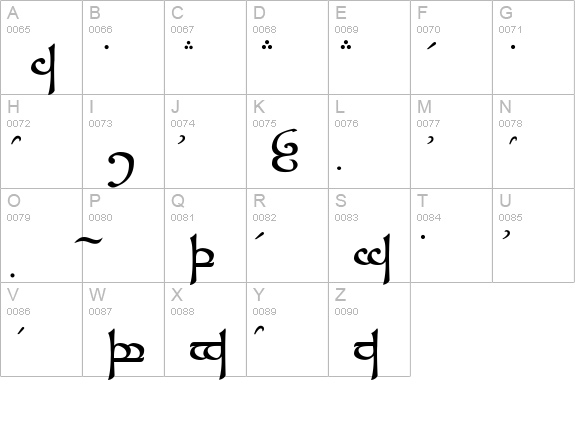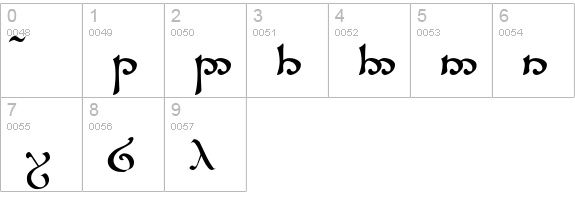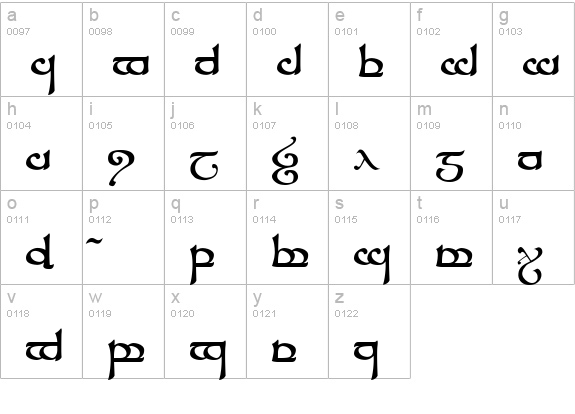
Tengwar Sindarin Font Details
Introducing the beautiful and enchanting Tengwar Sindarin font, a masterpiece designed to capture the essence of the Elvish script. This meticulously crafted font transports you to the mystical realms of J.R.R. Tolkien's Middle-earth, where the language of the Elves comes alive. Tengwar Sindarin boasts an elegant and flowing design that showcases the intricate curves and delicate strokes of each character. Every letter is imbued with a sense of grace and sophistication, reflecting the rich history and culture of the Sindar, one of the Elven kindreds. The Tengwar Sindarin font is more than just a typographic representation; it is a gateway to a world of imagination and wonder. Whether you are a dedicated Tolkien fan, a language enthusiast, or simply someone who appreciates the artistry of beautiful fonts, this typeface will captivate your senses and transport you to a realm of fantasy. What sets Tengwar Sindarin apart is its versatility. It can be used for a wide range of purposes, from designing book covers, creating stunning logos, or even crafting personalized tattoos. Its timeless and ethereal aesthetic lends itself to both modern and traditional designs, making it a perfect choice for any project that seeks to evoke a sense of magic and mystique. And the best part? Tengwar Sindarin is freely available to download at FontsMarket.com. We believe that creativity should be accessible to all, and we are thrilled to offer this font as a gift to the Tolkien community and beyond. With just a few clicks, you can bring the beauty of the Elvish script to your digital or print creations, allowing your imagination to soar to new heights. So, whether you are embarking on an artistic endeavor, expressing your love for Tolkien's works, or simply indulging in the beauty of the Elvish language, Tengwar Sindarin font is the perfect companion. Download it today and let the magic of Middle-earth unfold before your eyes.